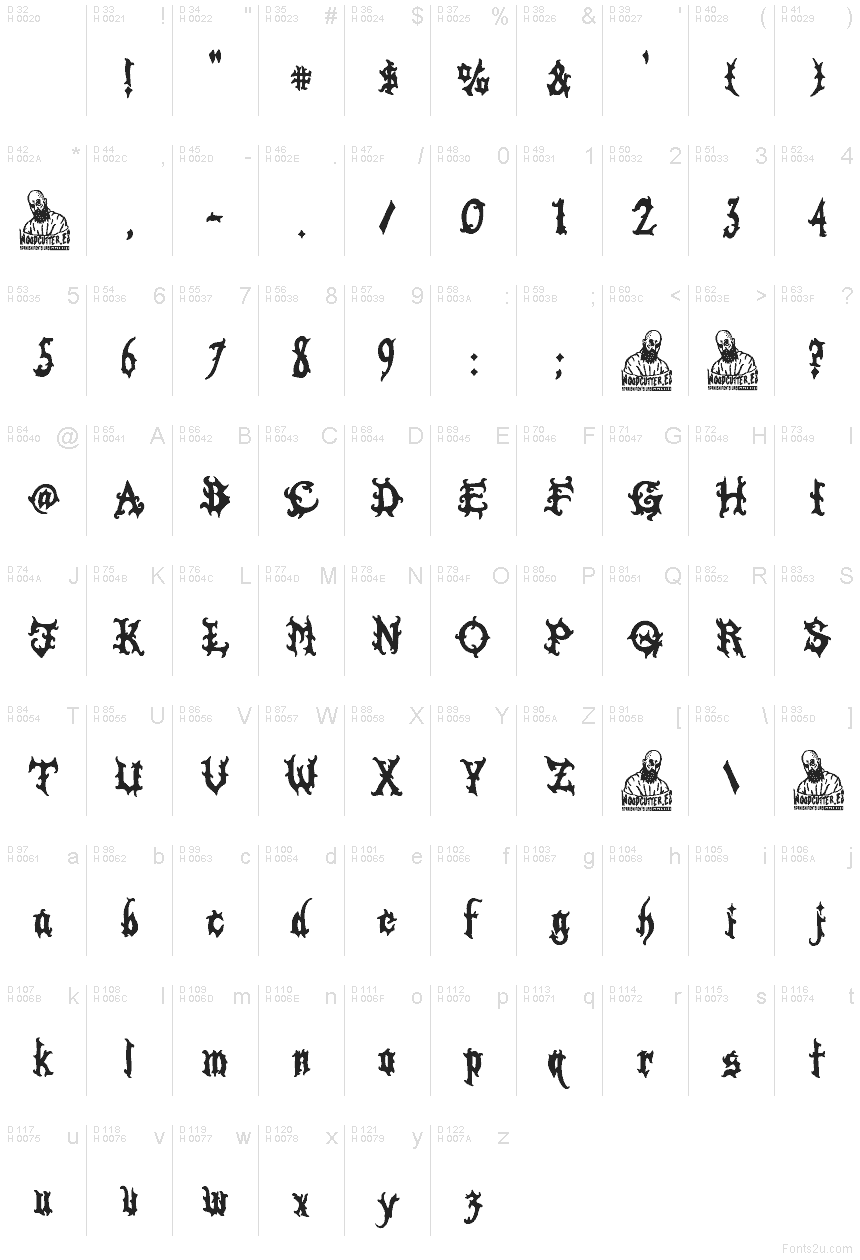
Juanita Gothic
Juanita Gothic font by Woodcutter presents a modern interpretation of the classic gothic style. The font features intricate details and delicate lines with unique ornaments inspired by medieval elements. The overall appearance appears fancy and decorous, but also slightly spooky which makes it ideal for elegant horror designs.
The free gothic font can be used in book covers, especially fantasy books, where it not only shines on the titles but other cover elements like author name and heading as well. It can also be implemented in packaging design, clothing brand identity design, poster headings, flyers and web titles.